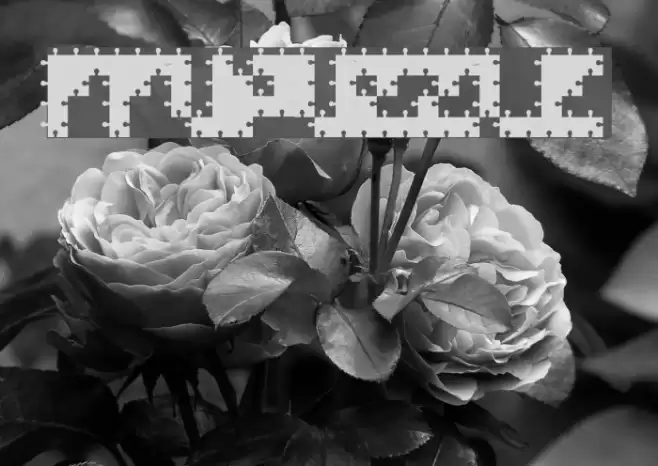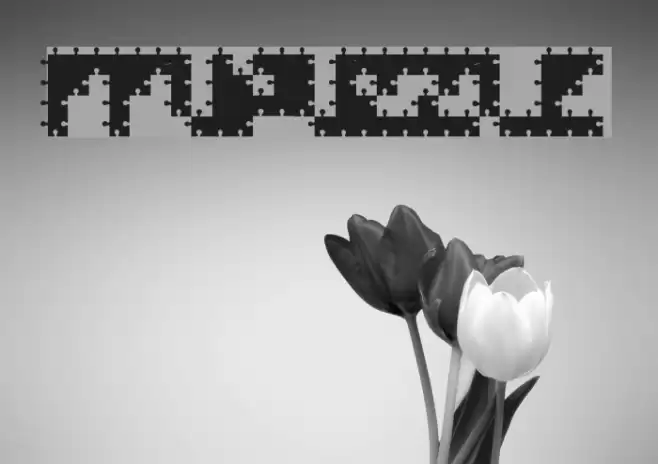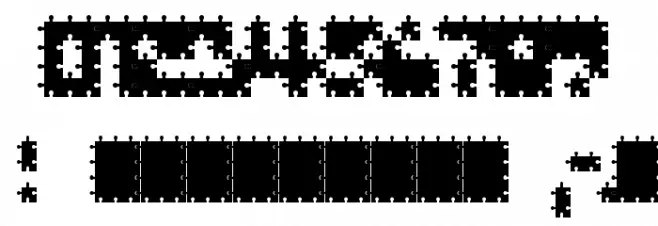
FFUPuzzle Font
This font features a unique and intricate design reminiscent of puzzle pieces fitting together. Each character is composed of interlocking segments, creating a visually engaging and complex appearance. The overall look is bold and striking, with a modern and playful aesthetic. The characters are evenly spaced, maintaining a consistent and cohesive look across the alphabet. This font is ideal for creative projects that require a distinctive and eye-catching typeface.
A bold, puzzle-inspired font with interlocking segments and a playful aesthetic from Uncategorized fonts.